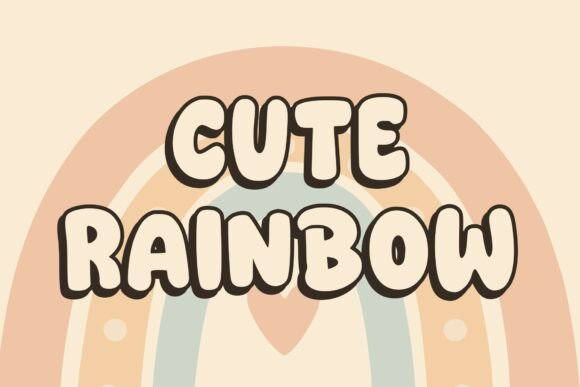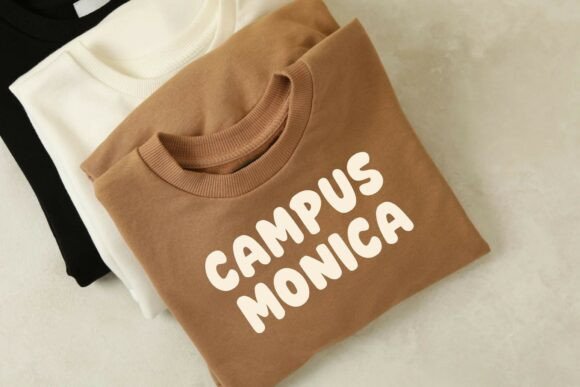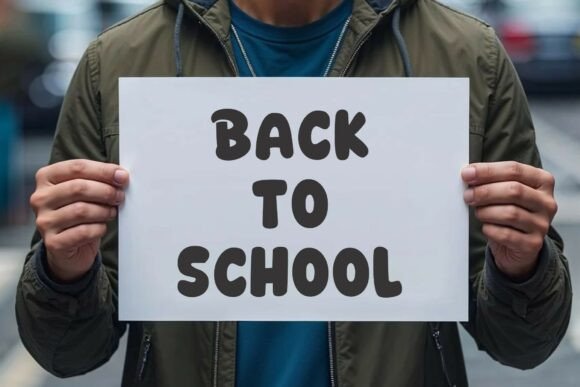
Introducing Comicastudy Regular Font: The Ultimate Display Font for Creative Projects
Are you tired of using the same old fonts for your creative projects? Do you want to add a touch of fun and personality to your designs? Look no further than Comica Study, a delightful display font that’s perfect for designers, crafters, and anyone looking to add some excitement to their work. In this article, we’ll dive into the world of Comica Study, exploring its features, benefits, and uses, and showing you why it’s a must-have font for your creative arsenal.
What is Comica Study?
Comica Study is a fun and cute display font that’s designed to bring a friendly feel to your designs. Its playful, energetic vibe makes it incredibly versatile, fitting a wide range of contexts and applications. Whether you’re designing for kids, creating social media graphics, or crafting promotional materials, Comica Study is the perfect choice for adding a dose of joy and energy to your work.
Key Features of Comica Study
• Fun and playful design: Comica Study’s unique design makes it stand out from the crowd, adding a touch of whimsy and personality to your designs.
• Versatile: This font is incredibly versatile, fitting a wide range of contexts and applications, from kids’ designs to promotional materials.
• Easy to read: Despite its playful design, Comica Study is easy to read, making it perfect for use in body text or headlines.
• High-quality: Comica Study is a high-quality font, designed to deliver crisp, clear results in any design application.
Benefits of Using Comica Study
So why should you choose Comica Study for your creative projects? Here are just a few benefits of using this amazing font:
• Adds personality to your designs: Comica Study’s unique design helps your message stand out with charm and character, adding a touch of personality to your designs.
• Perfect for kids’ designs: This font is ideal for designing for kids, with its playful, energetic vibe that’s sure to delight young audiences.
• Elevates your creative ideas: Comica Study has the potential to elevate any creation, making it a valuable addition to your font library.
• Increases engagement: By adding a touch of fun and personality to your designs, Comica Study can help increase engagement and capture your audience’s attention.
Using Comica Study in Your Designs
So how can you use Comica Study in your designs? Here are a few ideas to get you started:
• Kids’ designs: Use Comica Study to create fun, engaging designs for kids, such as posters, flyers, and social media graphics.
• Social media graphics: Add a touch of personality to your social media graphics with Comica Study, using it to create eye-catching headlines and titles.
• Promotional materials: Use Comica Study to create promotional materials that stand out, such as brochures, flyers, and posters.
• Branding: Comica Study can also be used as a branding font, helping to establish a fun, playful tone for your brand.
In conclusion, Comica Study is an amazing display font that’s perfect for designers, crafters, and anyone looking to add some excitement to their creative projects. Its fun, playful design and versatile nature make it a valuable addition to any font library, and its benefits are numerous. Whether you’re designing for kids, creating social media graphics, or crafting promotional materials, Comica Study is the perfect choice for adding a touch of personality and charm to your designs. So why wait? Download Comica Study today and start creating with this incredible font!